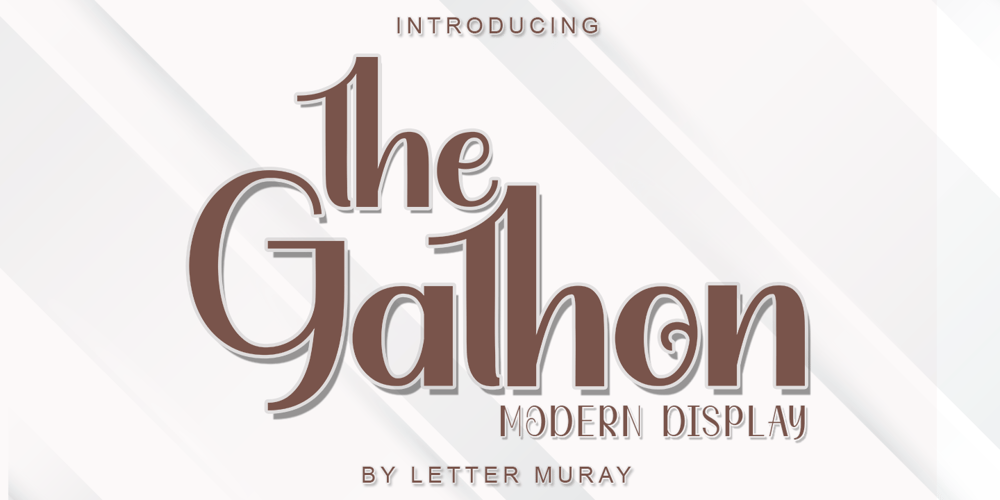
The Gathon
The Gathon font
The Gathon Font Family was designed by Muji Bullah and published by Letter Muray. The Gathon contains 1 styles and family package options. The Gathon is a beautiful Modern Display. it comes with beautiful characters in a hand lettering style. It was created to bring some elegance to all designs!It has a subtle, clean, feminine, sensual, and glamorous look which makes it perfect for invitations, labels, menus, logos, stationery, letterpress, romantic novels, magazines, books, greeting / wedding cards, packaging, labels, and much more!